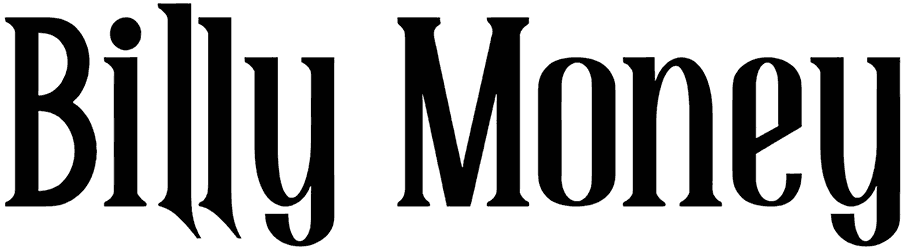
Billy Money Font
Billy Money will let your imagination fly and run a vintage touch of natural serif lettering. You can include this money font in personal schemes that call for an A-Z font with a nostalgic vibe; greeting cards, quotes, movie titles, flyers, etc.